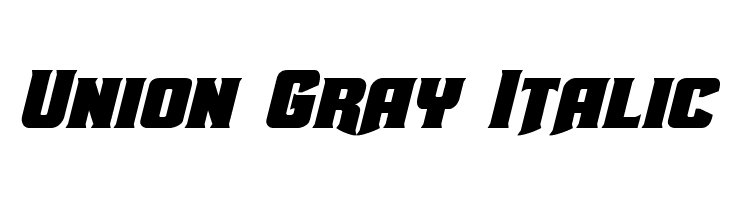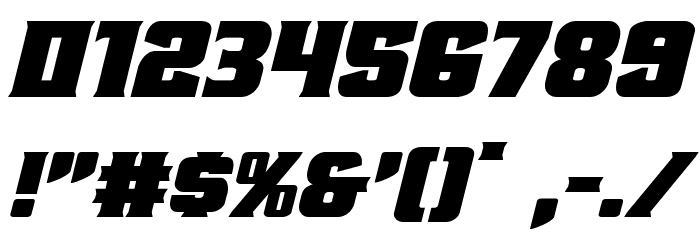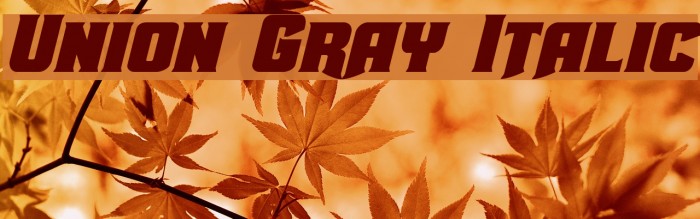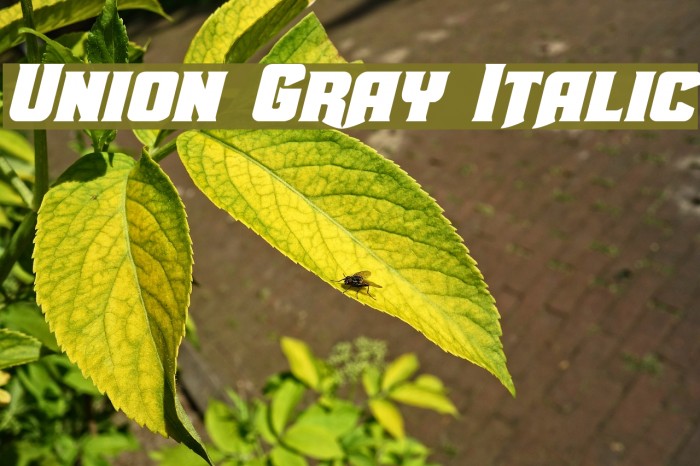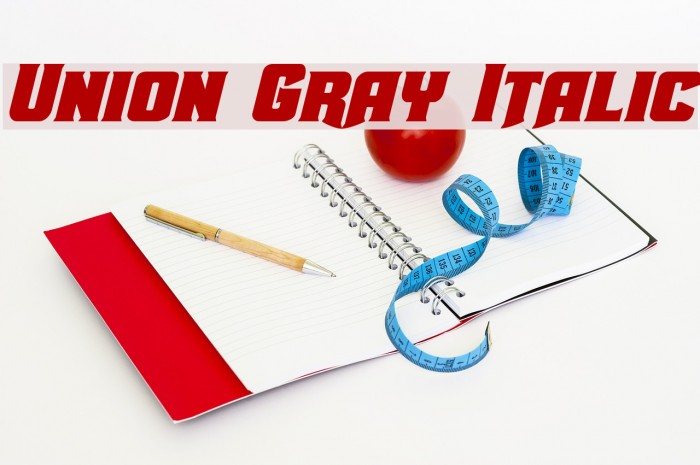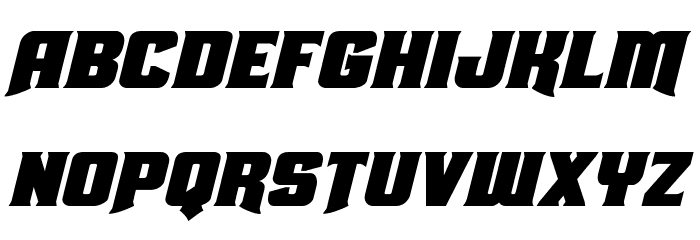
Union Gray Italic Font
This font features a bold and dynamic style with a strong italic slant, giving it a sense of movement and energy. The characters are wide and robust, with sharp angles and a slightly condensed form that enhances its bold appearance. The uppercase and lowercase letters maintain a consistent style, with the uppercase being particularly striking due to its size and weight. Numbers and special characters follow the same design principles, ensuring uniformity across all glyphs. The font's aggressive and modern look makes it suitable for impactful designs.
A bold, italic font with a dynamic and modern style.
• Proposed Projects: Ideal for sports branding, action movie posters, dynamic logos, and any project requiring a strong visual impact.
• Category: Decorative/Display
• Bold: Yes
• Italic: Yes
• Weight: Bold
• Width: Condensed
• Character Spacing: Normal
• Contrast: High
• Overall Style: Modern
• Use Case: Headlines, Logos